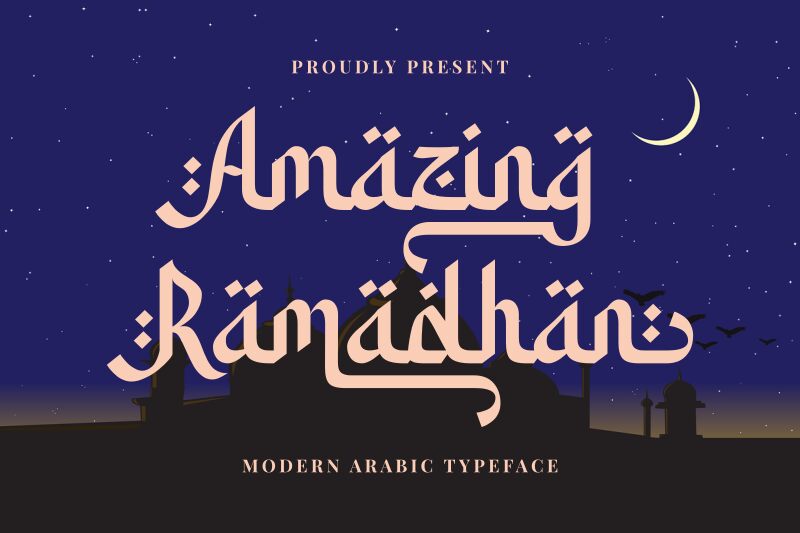
Amazing Ramadhan is a captivating font that seamlessly blends traditional Arabic calligraphy with a modern, elegant aesthetic. Designed by RaffaSyad Studio, this foreign-style font is a true masterpiece, showcasing intricate flourishes and flowing strokes that evoke a sense of grace and artistry.
The Arabic-inspired style of Amazing Ramadhan lends itself beautifully to a wide range of design applications. From formal event invitations and religious publications to high-end packaging and branding, this font's ornate, yet legible, characters can elevate any project with their timeless charm and cultural richness. Its versatility makes it an invaluable asset for designers seeking to create visually striking, culturally relevant designs that captivate and inspire their audience.